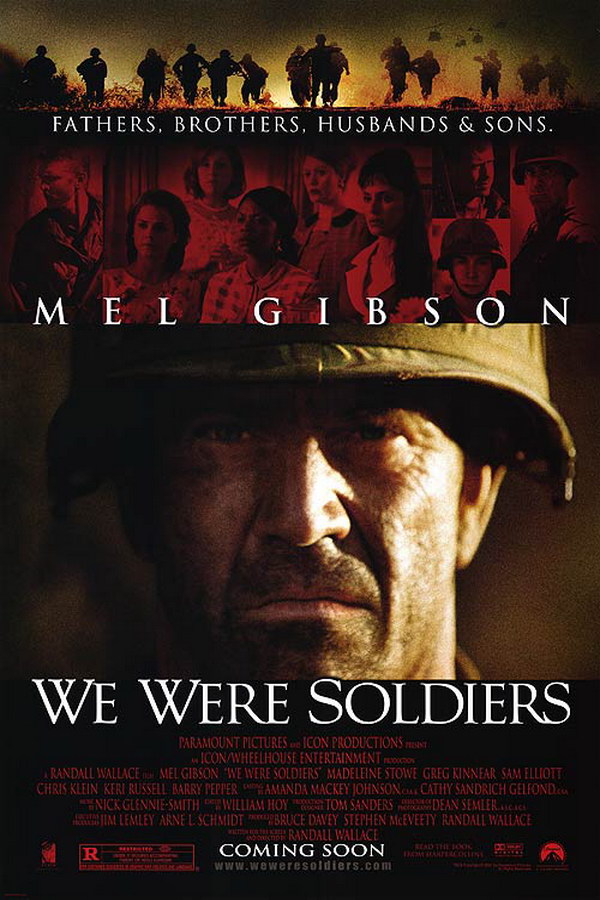
We Were Soldiers Font
Fonts in UseWe Were Soldiers is a 2002 war film based on the true story of the Battle of Ia Drang in 1965 during the Vietnam War.
The movie's title "We Were Soldiers" on the poster is most likely displayed in Goudy Old Style, a timeless serif typeface designed by Frederic W. Goudy for American Type Founders back in 1915. You can learn more about the font here.